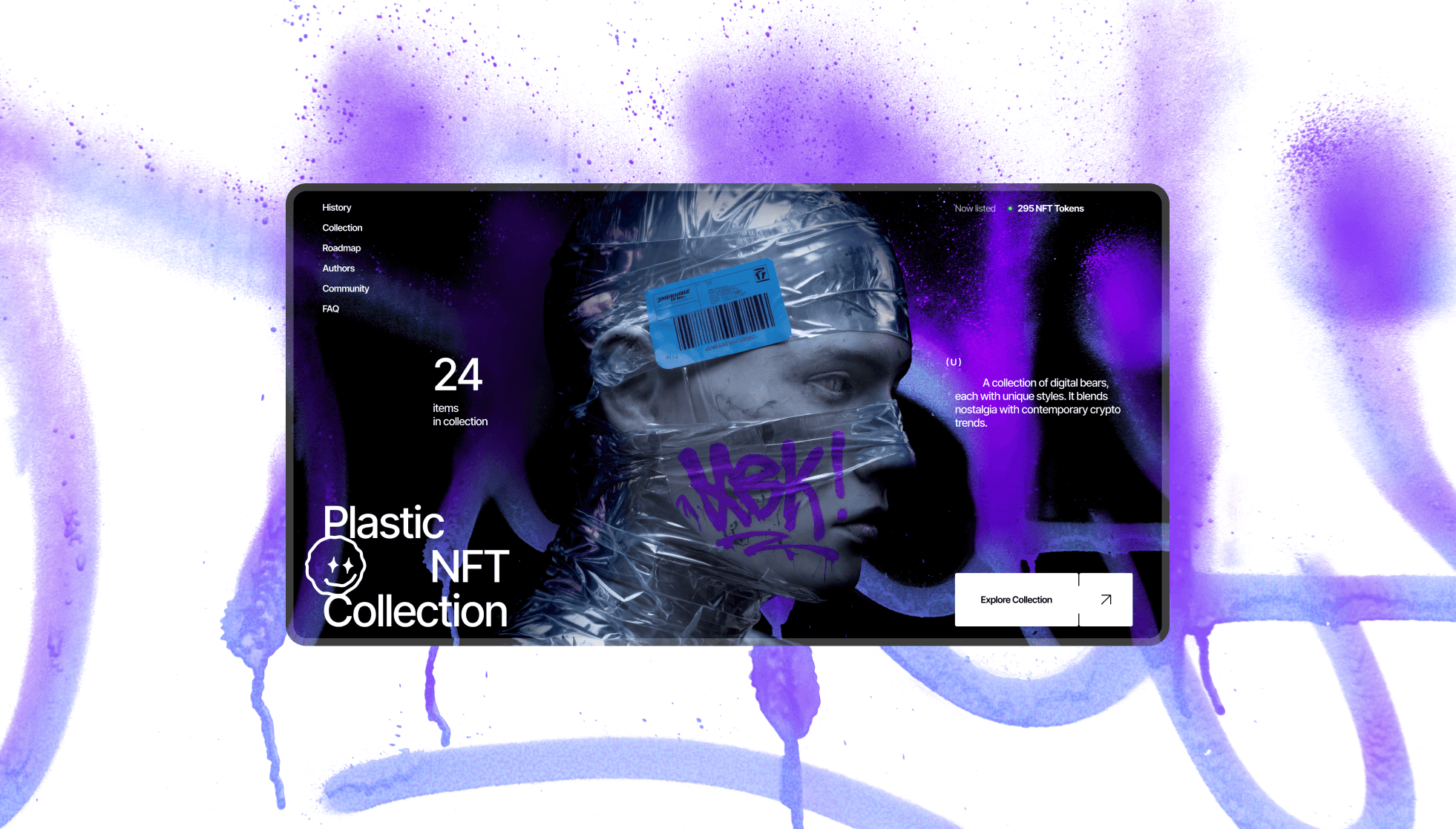
Plastic NFT Collection is a limited series of digital artworks exploring identity, consumption, and modern visual culture.
Our goal was to design an interface that feels raw, futuristic, and immersive — a digital space that merges art, fashion, and crypto culture.
We approached this project as a visual experiment. The interface combines brutalist structure with vivid motion and grain textures, evoking the tension between perfection and chaos.
The dark base palette with neon gradients and sprayed effects reflects the aesthetic of underground digital art, while dynamic typography reinforces the sense of rebellion and distortion.
We created a bold, expressive identity inspired by street art and cyber aesthetics.
The logotype is intentionally imperfect — fluid and adaptive — paired with a minimalist smiley mark that reflects irony and individuality.
The color system plays on contrast: black for digital void, purple for creativity, and electric blue for energy.
Together, they form a visual language that feels edgy, confident, and collectible.
The new design helped the project stand out in the NFT space by building a distinctive visual voice around rebellion and nostalgia. Plastic NFT Collection became not just an art drop — but a statement about modern digital identity.
We developed a visual identity that captures the project’s core idea — the clash between digital perfection and human imperfection. The logo combines raw, graffiti-inspired strokes with clean geometric typography, symbolizing freedom inside structured chaos. The smiley emblem became the key brand element — ironic, recognizable, and slightly distorted, representing rebellion within the NFT culture.